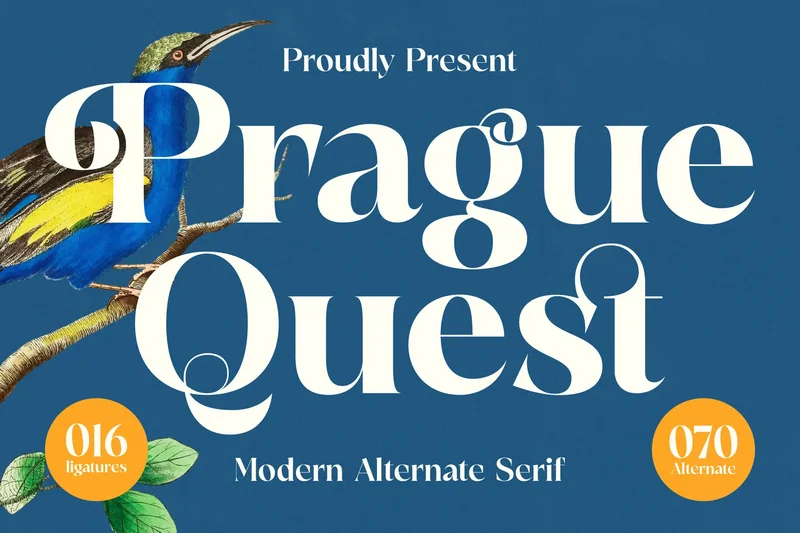
Prague Quest – Modern Alternate Serif
Prague Quest is a modern alternate serif font that blends elegant curves with bold sophistication. Featuring stylish ligatures and multiple alternates, this typeface is perfect for branding, logos, packaging, posters, and editorial layouts. With its refined details and timeless charm, Prague Quest brings creativity and elegance to both digital and print projects, making it a versatile font for designers seeking a classy and dramatic look.